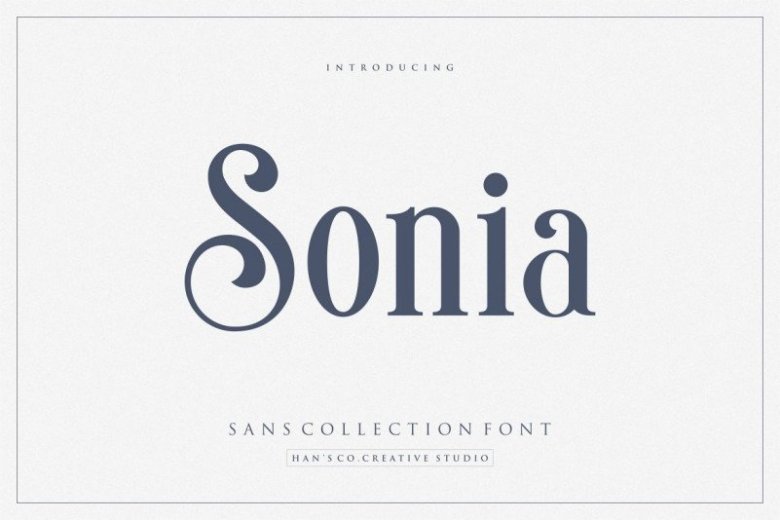
Sonia Serif Font
Continue to be a elegant serif font. This new font revisits the neo-classical style of highly contrasted serifs and brings a resolutely contemporary touch to graphic or editorial projects. Introducing Sonia Font. It is designed and shared by HansCo. It’s an elegant serif font designed with lovely circle tail to create a classy font style. It perfectly represents classic yet modern way. Its versatile design options is perfect for headlines, logos and branding, displays, invitations, posters, packaging, blog headers, recipe cards, postcards and so much more.